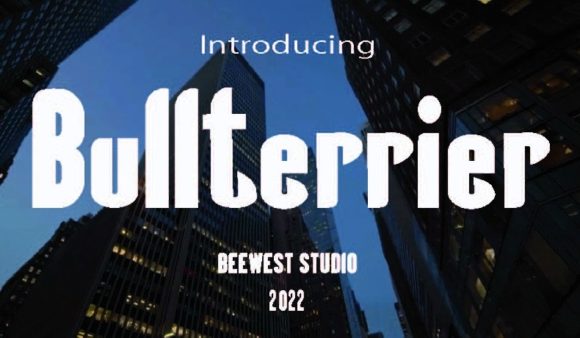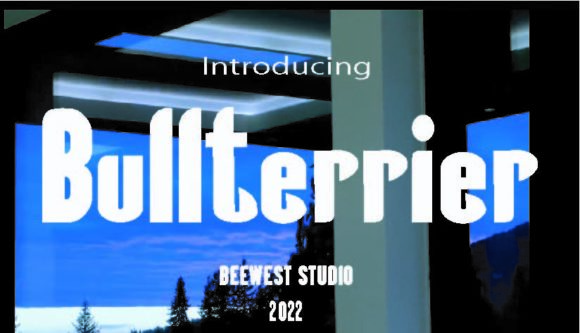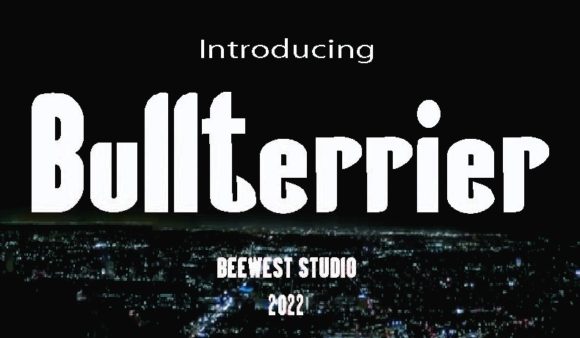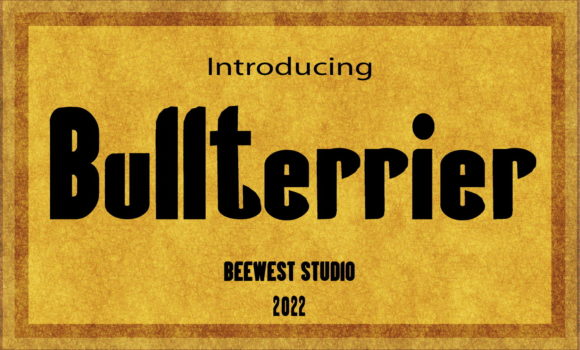
Get Ready to Unleash Your Creativity with the Bullterrier Font
Do you ever find yourself staring at a blank canvas, waiting for the perfect font to bring your design to life? It’s a moment we’ve all been there – the spark that ignites our creativity, the missing piece that completes our vision. For designers, this moment is what drives us to keep pushing the boundaries of what’s possible.
Enter the Bullterrier Font, a cool and bold display font designed to make your mark. Perfect for logotype, headlines, and corporate identities, this font is the ultimate game-changer for designers looking to add some edge to their projects. Whether you’re working on a music album cover, a comic book series, or a viral social media campaign, the Bullterrier Font is the perfect companion to help you unleash your creativity and make a lasting impression.
- Unique Characteristics: Distinctive, rugged design with a bold and playful feel, making it suitable for headings and titles
Bullterrier Font Review
As a designer, I was excited to dive into the Bullterrier font and see what it had to offer. Here are my honest thoughts on this font.
- Unique and quirky design: The Bullterrier font has a distinct, energetic feel to it that’s sure to grab attention.
- High-quality rendering: The font renders smoothly, even at larger sizes, making it a great choice for titles and headlines.
- Good legibility: Despite its unconventional design, the font is still easy to read, making it suitable for body text as well.
- Limited flexibility: The font’s design is quite rigid, making it less versatile than some other fonts.
- Not ideal for small text: While the font is legible, it may be too bold and overwhelming for small text sizes.
The Bullterrier font is a bold, attention-grabbing choice that’s perfect for titles, headlines, and other display text. While it may not be the best choice for body text or small text sizes, it’s a great option for designers looking to add some personality to their designs.
Tips for Getting the Most Out of Bullterrier Font
To get the most out of the Bullterrier font, consider the following tips:
- Use the font in bold or italic to add emphasis to your text.
- Pair the font with other bold or script fonts to create a unique look.
- Use the font in large sizes to create a striking headline.
The Bullterrier font is commonly used in:
- Rock and roll music promotions.
- Edgy fashion designs.
- Alternative culture graphics.
Alternatives to Bullterrier Font
The Bullterrier Font is a unique, bold, and eye-catching font, but it may not be suitable for every design project. Here are some alternatives that designers can consider: